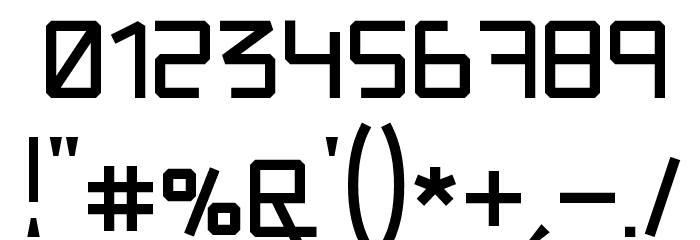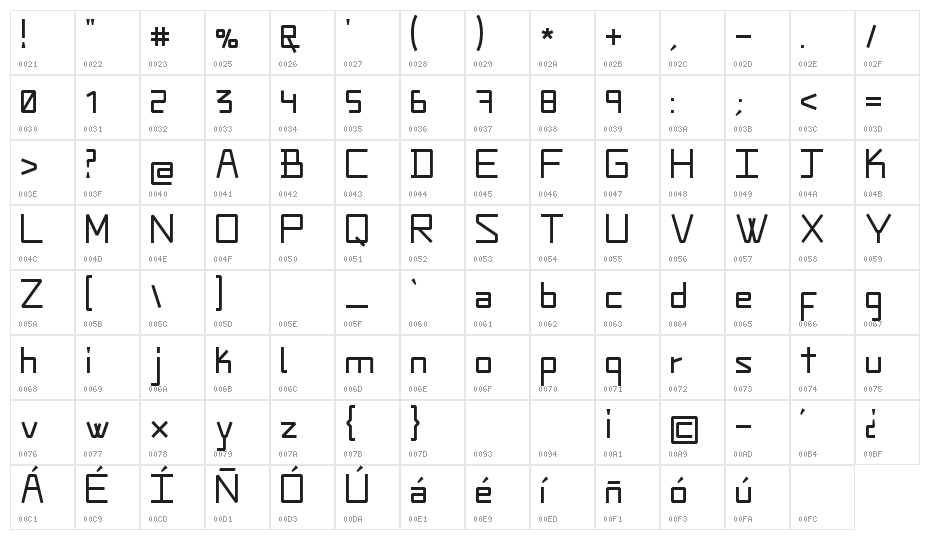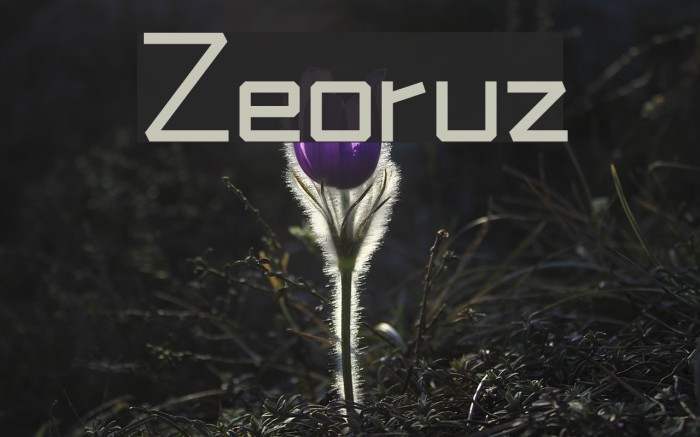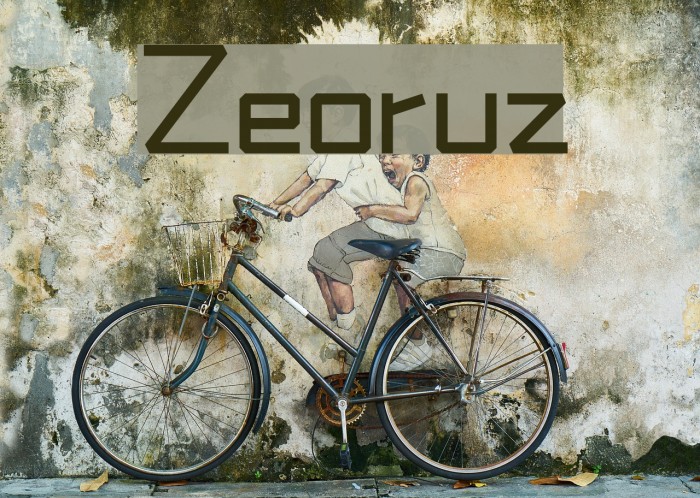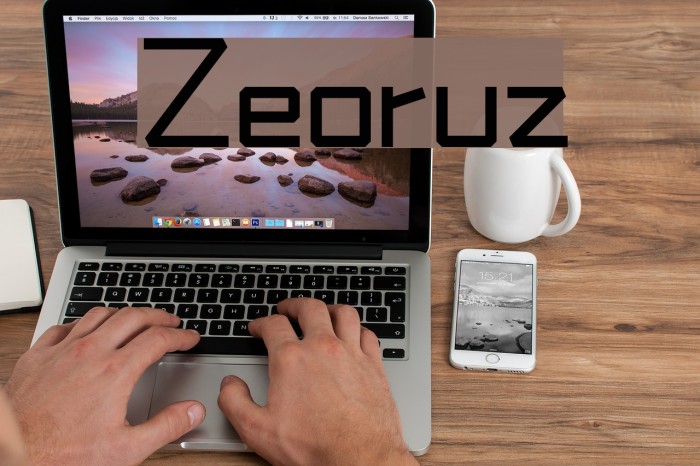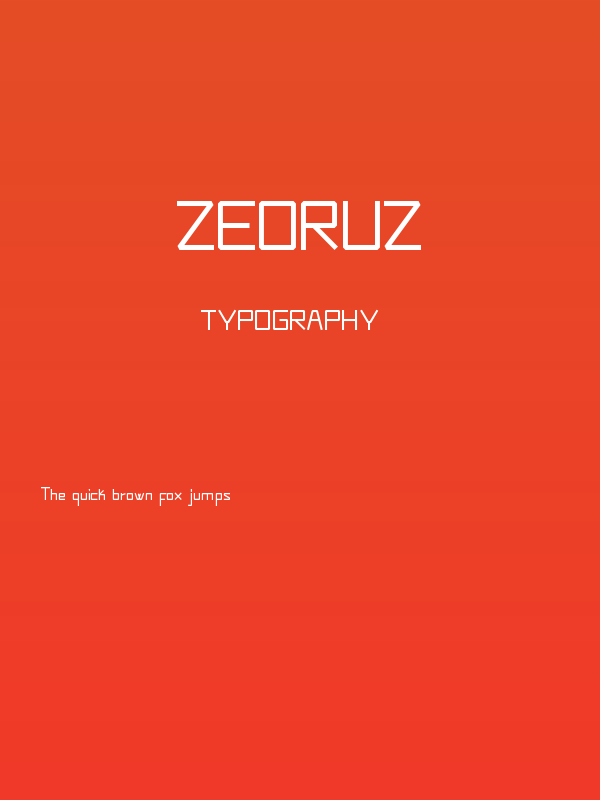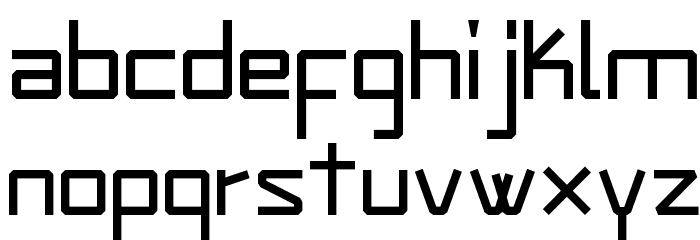
Zeoruz Font
Zeoruz Description
This font features a geometric and modern design, characterized by its clean lines and angular shapes. The uppercase letters are uniform in height, with a consistent stroke width that gives a balanced and structured appearance. The lowercase letters maintain the geometric theme, with some characters like 'a' and 'g' having a unique, stylized form. The numerals are distinct and easy to read, matching the overall aesthetic of the font. Special characters are well-integrated, maintaining the same angular and modern style. This font is ideal for projects that require a contemporary and tech-savvy look.
| Use Case | Logos, Headlines, Digital Interfaces |
| Proposed Projects | Ideal for tech branding, modern posters, digital interfaces, and futuristic designs. |